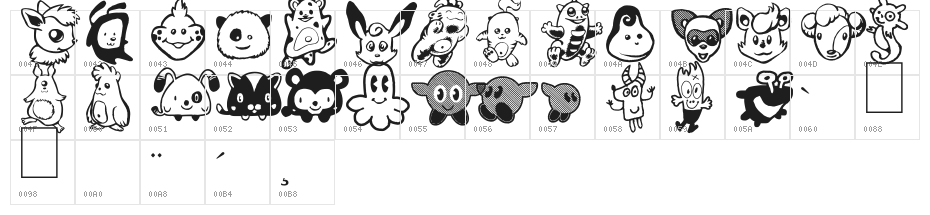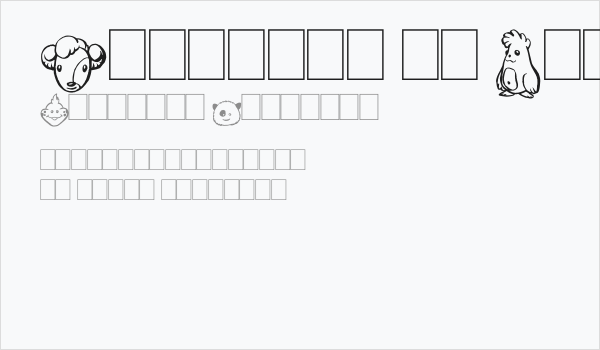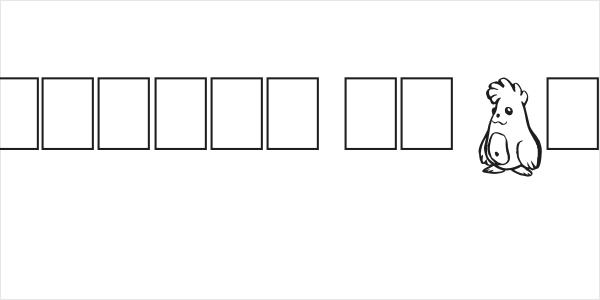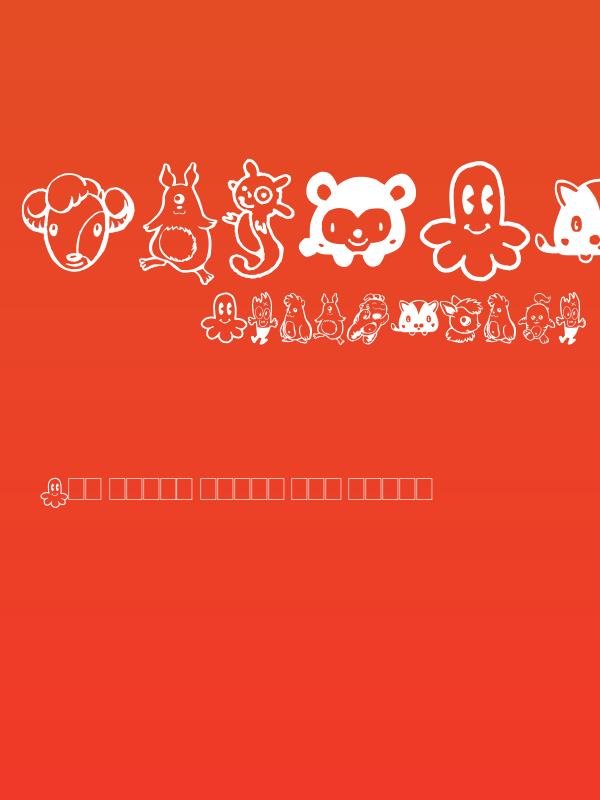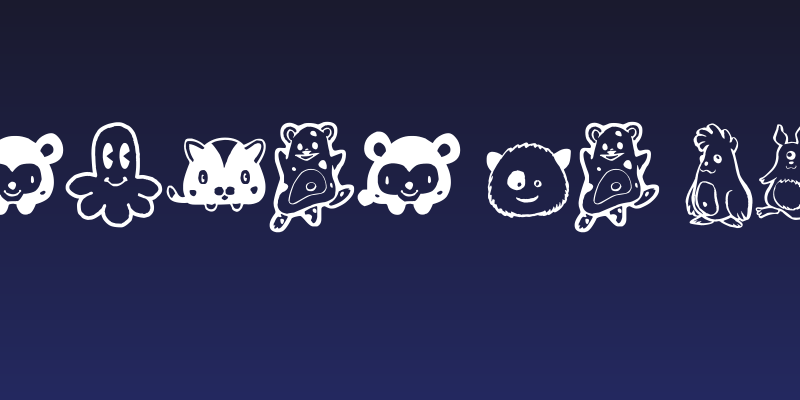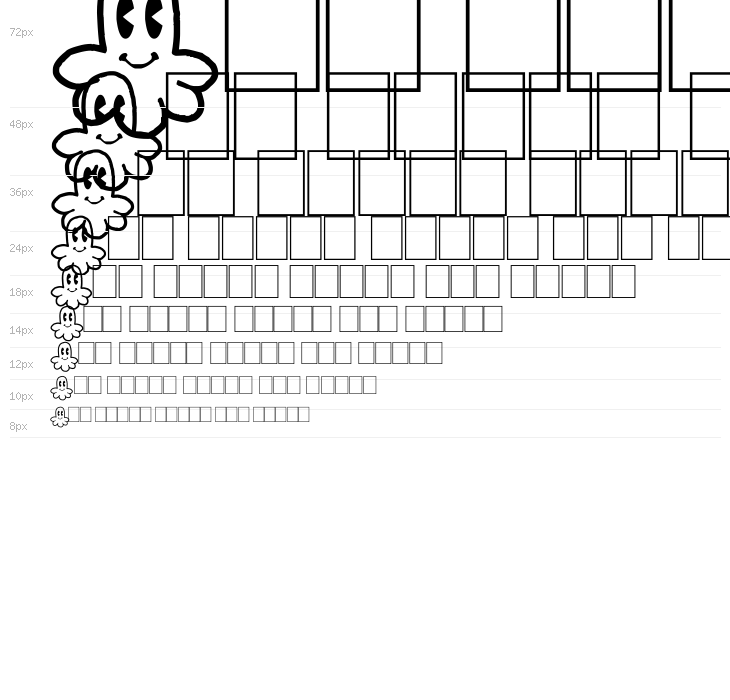
Monstres de Poche Font
Monstres de Poche Description
A playful, decorative font composed of whimsical, hand-drawn monster and creature illustrations representing each character. The glyphs are highly stylized with bold outlines, varying fill styles, and a cartoonish aesthetic, making each letter and symbol unique and expressive.
| Overall Style | Decorative, Playful, Cartoonish |
| Use Case | Logos, Headlines, Posters, ChildrenΓ’β¬β’s content |
| Proposed Projects | ChildrenΓ’β¬β’s books, playful branding, party invitations, educational materials, posters, games. |